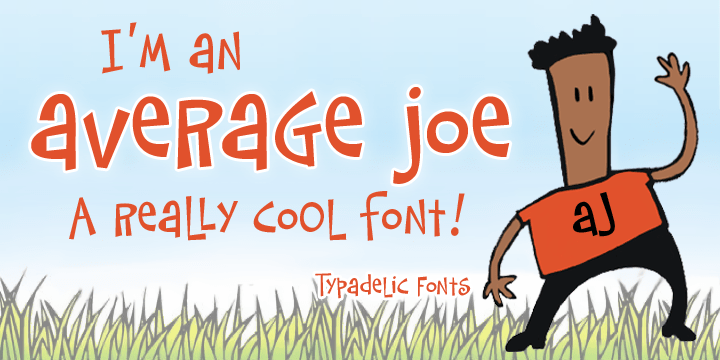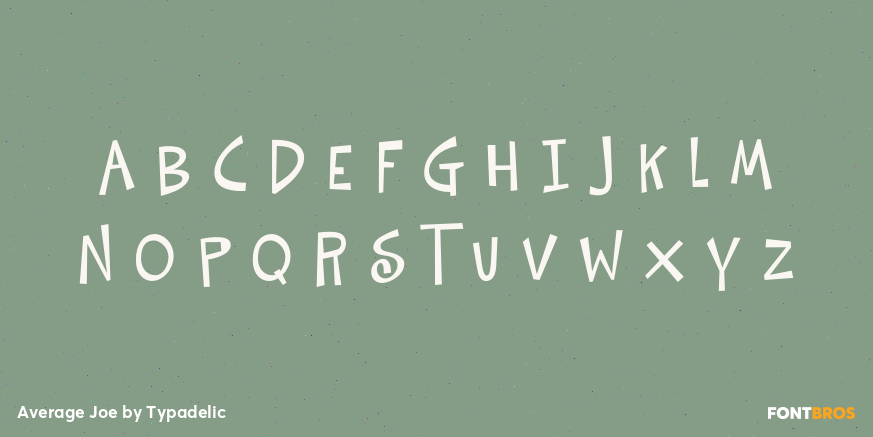
Average Joe
Font Family by Typadelic
Based on a mid 20th century retro typestyle, Average Joe is anything but average! You might even find that it breaks the rules and is somewhat of a rebel. Because this font has such a bouncy style, I've created extra characters for ease of flow when you type. Try combining upper and lowercase letters for a really fun look!